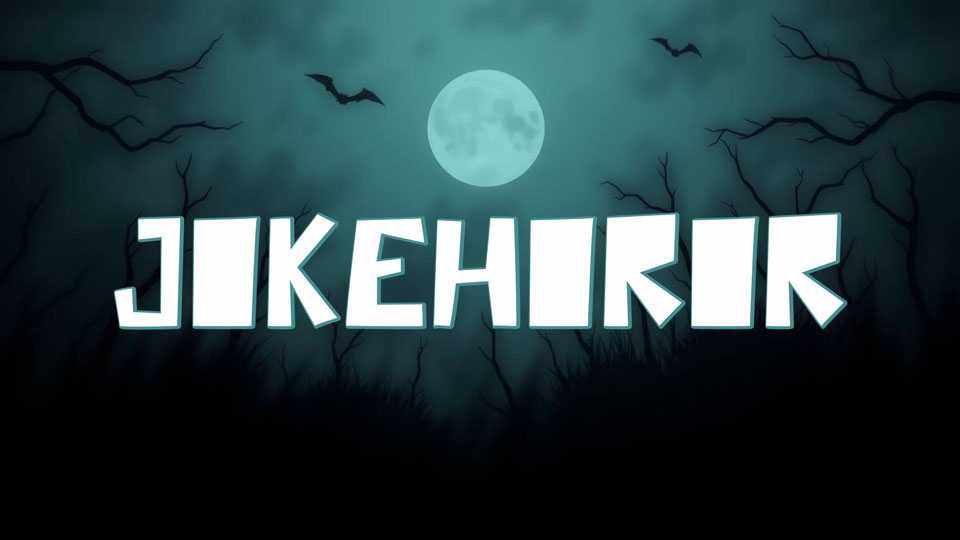
Download Jokehoror font, a bold and quirky display typeface that fuses playful energy with a spooky edge and chunky, geometric letterforms with sharp angles and irregular cuts.